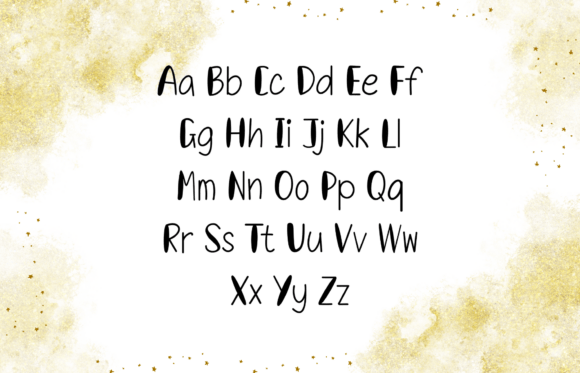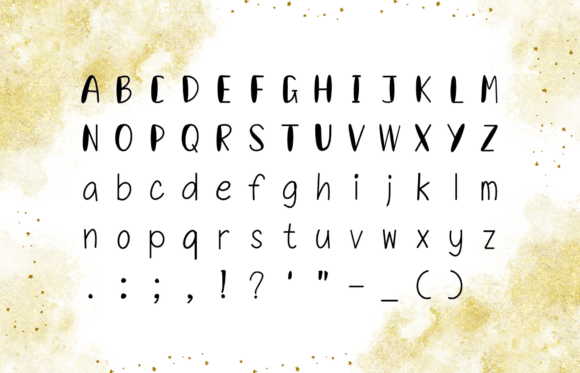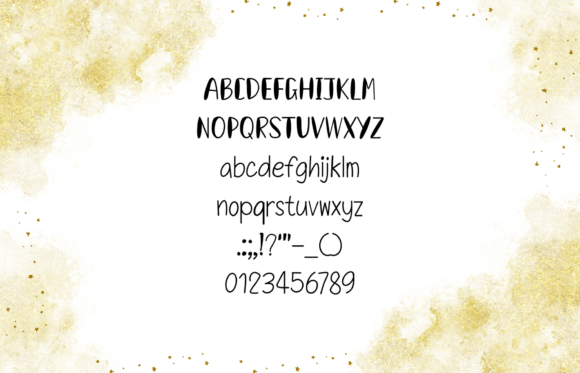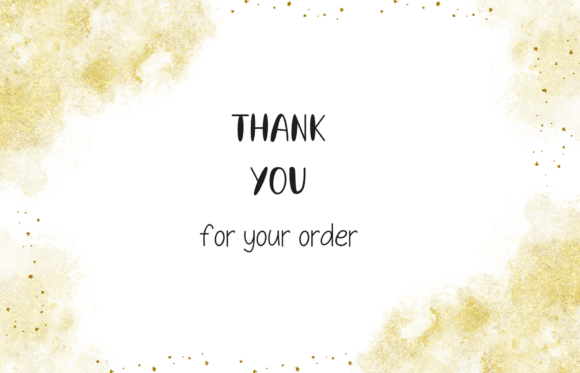
Unleashing the Charm of Handwritten Fonts
Do you remember the joy of doodling in your notebook as a child, creating quirky characters and whimsical patterns with every stroke of your pencil? For many of us, the act of drawing and writing is not just a form of self-expression, but a way to connect with our creative selves.
Enter the Azalea Font, a sweet and friendly handwritten display font designed to bring a touch of playfulness to your designs. Whether you’re a graphic designer, digital artist, or simply someone who loves to create, this font is a valuable addition to your toolkit. With its cute and fun style, the Azalea Font is perfect for crafts, digital design, and presentations, making it a must-have for anyone looking to add a personal touch to their work.
Azalea Font Key Features
- Character Count: The font contains over 400 glyphs, including a comprehensive set of Latin and Cyrillic characters, as well as additional symbols and ornaments.
- Unique Characteristics: The font features a distinctive, hand-drawn aesthetic with intricate details and subtle texture, making it perfect for creative projects that require a touch of elegance.
Azalea Font Review
As a designer, I’ve had the opportunity to work with a wide range of fonts, and Azalea is one that has left a lasting impression on me. Here’s what I think works well:
- ✨ Unique flair: Azalea has a distinctive, playful feel that sets it apart from more traditional fonts. Its whimsical flair adds a touch of personality to any design.
- ✨ Versatility: Despite its quirky nature, Azalea is surprisingly versatile and can work well in a variety of contexts, from headings to body text.
- ✨ Legibility: I was pleasantly surprised by how well Azalea reads, even at smaller font sizes.
- ⚠️ Limited character set: Azalea’s character set is somewhat limited, which may be a concern for designers working with languages that require a wide range of characters.
- ⚠️ Kerning issues: I noticed some minor kerning issues in certain combinations of letters, which can be distracting in certain contexts.
Overall, I think Azalea is a fun and creative font that can add a unique touch to your designs. While it may have some limitations, its unique flair and versatility make it worth considering for the right project.
Azalea Font Practical Application Guide
For best results, use Azalea Font for titles and headings, as its elegant and refined style suits formal and sophisticated designs.
When using Azalea Font in Adobe applications, consider using it for decorative text or headings, as its unique style can add a touch of elegance to your designs.
When using Azalea Font in PowerPoint or Word, use it for titles, headings, or body text to add a touch of sophistication to your documents.
Azalea Font is ideal for:
- Formal event designs and announcements
Remember to use Azalea Font in moderation, as its unique style can be overpowering if used too extensively.
Alternatives to Azalea Font
Pacifico is a beautiful, elegant script font perfect for designs that require a touch of sophistication and romance. It’s ideal for wedding invitations, branding, and other applications where a classic, high-end feel is desired. Compared to Azalea Font, Pacifico is more formal and less playful, making it a great choice for designs that need a more refined look.
Great Vibes is a modern, cursive font that’s perfect for designs that need a fun and energetic feel. It’s great for branding, advertising, and other applications where a playful, youthful vibe is desired. Compared to Azalea Font, Great Vibes is more modern and less ornate, making it a great choice for designs that need a fresh and exciting look.
What is the recommended font size for Azalea Font?
The recommended font size for Azalea Font is between 12pt and 24pt, depending on the application and the desired level of legibility. For body text, we recommend using a font size between 14pt and 18pt. For headings, you can use a font size between 24pt and 48pt.